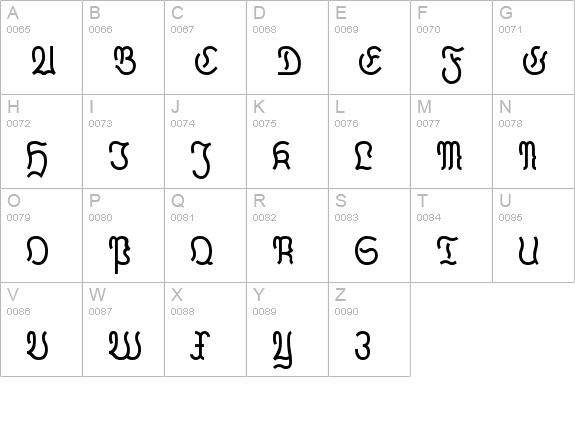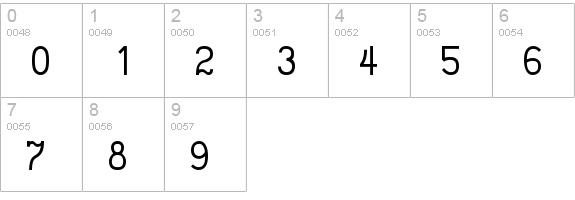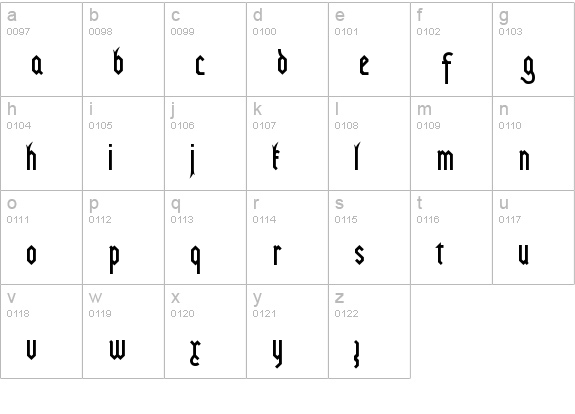
Fraktur Modern font is a stunning display typeface that beautifully blends traditional Fraktur style with a modern twist. Its intricate letterforms exude a sense of elegance and sophistication, making it perfect for projects that require a touch of old-world charm with a contemporary flair. Designed with meticulous attention to detail, Fraktur Modern font is versatile and can be used for a wide range of design projects, from branding and packaging to editorial design and invitations. Its unique character shapes and sharp serifs give your text a distinctive and memorable look that is sure to captivate your audience. What's even better is that Fraktur Modern font is available for free download at FontsMarket.com, allowing you to easily access this high-quality typeface to elevate your designs without breaking the bank. Don't miss out on the opportunity to add this exquisite font to your collection and bring a touch of timeless sophistication to your next project.